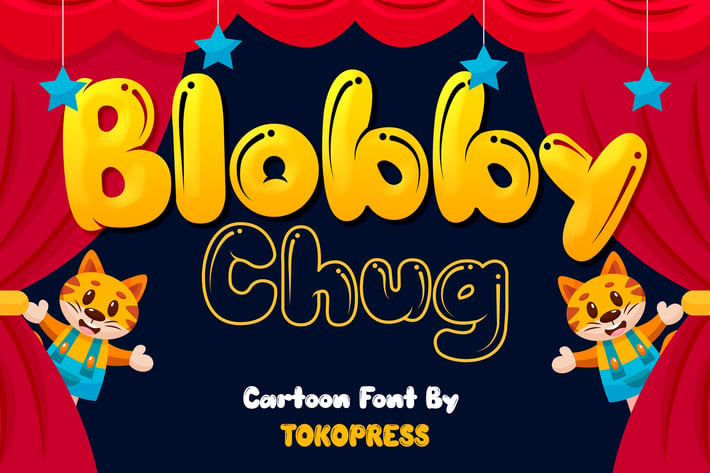
Blobby Chug - Kids blob font
Blobby Chug - Kids Blob Font
Blobby Chug is a soft, playful, kids-friendly blob font designed to bring warmth, fun, and curiosity to any design. Its bouncy baseline, rounded proportions, and chunky letterforms create a whimsical tone ideal for early learning brands, toy packaging, or cheerful headlines.
With its bubble-like structure and soft terminals, this font delivers a joyful, tactile feeling—like a squeezable plush or colorful clay. It speaks to young audiences while remaining highly legible for print or digital use, making it a perfect choice for designers creating charming, child-focused visual content.
Whether you're designing birthday invitations, educational posters, snack packaging, or a storybook app, Blobby Chug makes content feel instantly friendly and relatable. Its soft, expressive style is crafted to capture a child's attention while appealing to parents with its clean and professional finish. Perfect for baby brands, YouTube thumbnails, or nonprofit animal campaigns—it’s an instant visual hug.
Key Features :
Chunky & Round: Creates a soft, friendly vibe ideal for children’s content
Easy to Read: Clear letterforms ensure legibility for young learners
Playful Bounce: The natural, wobbly rhythm adds fun and movement to every word
Emotionally Engaging: Inspires warmth, happiness, and trust
* Flexible Uses: Perfect for product packaging, storybooks, pet campaigns, school branding, and more